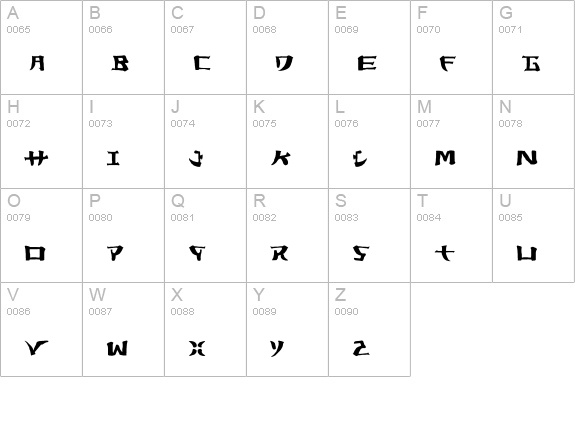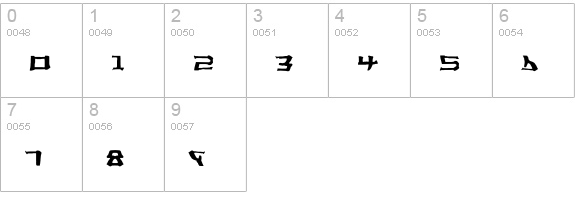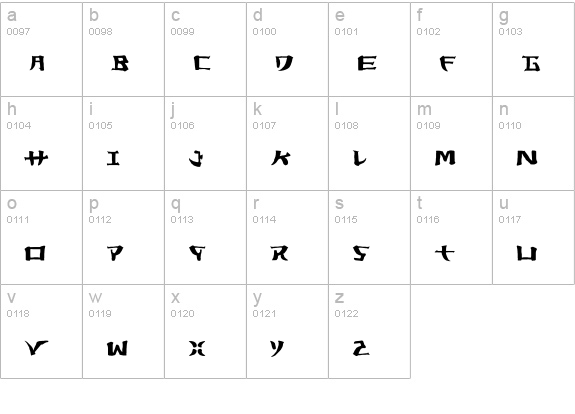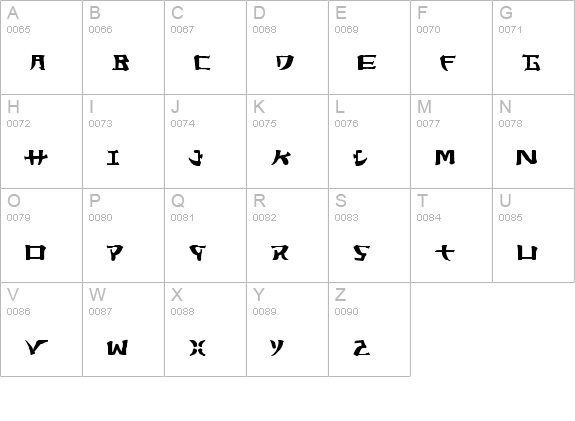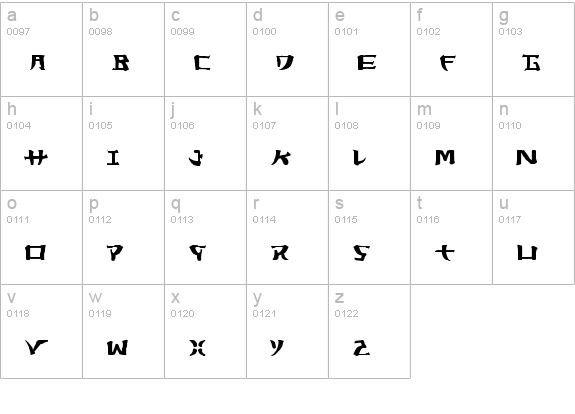
Yorstat Font Details
Introducing Yorstat font, a modern and stylish typeface that exudes elegance and sophistication. With its clean lines and sleek curves, Yorstat is perfect for a wide range of design projects, from branding to marketing materials. This versatile font is highly legible and works well in both print and digital formats. What makes Yorstat font even more appealing is that it is available for free! Yes, you read that right - you can download this beautiful font at no cost from FontsMarket.com. Whether you're a professional designer looking to add a new font to your collection or a student working on a project, Yorstat font is a fantastic choice that won't break the bank. Don't miss out on the opportunity to enhance your designs with the stunning Yorstat font. Download it today and elevate your projects to the next level!